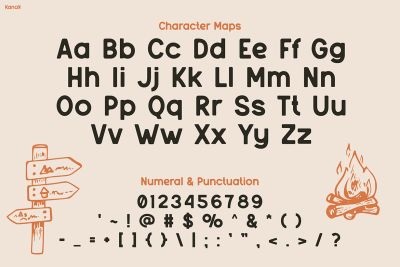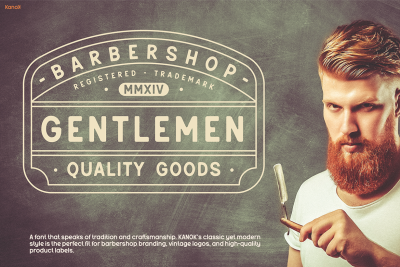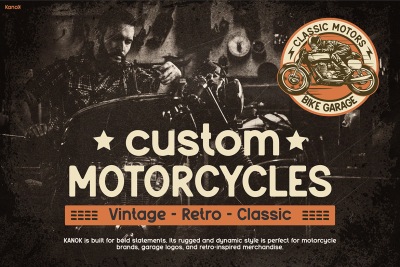
Retro Font KANOK is a beautifully crafted typeface that embodies the spirit of vintage design. With bold, structured letterforms and a nostalgic feel, this font is perfect for projects that seek to capture a sense of history and authenticity. Inspired by mid-century typography, KANOK offers a classic aesthetic while maintaining modern versatility.
The font features a bold and refined style with smooth curves and sharp edges, making it ideal for designs that require both strength and sophistication. Its timeless appeal makes it suitable for branding, packaging, and editorial use. Whether applied to beer labels, restaurant menus, or vintage-themed merchandise, KANOK enhances the visual experience with its striking presence.
Additionally, Retro Font KANOK provides exceptional readability while retaining a handcrafted essence. The balance between boldness and subtle detailing makes it stand out in both digital and print formats. The seamless integration of vintage and contemporary design elements ensures that KANOK remains relevant across different creative projects.
Who Should Use Retro Font KANOK?
- Breweries & Beverage Brands: Perfect for beer labels, wine packaging, and premium beverage branding, delivering a refined and classic aesthetic.
- Restaurants & Cafรฉs: Ideal for menus, signage, and promotional materials that require a nostalgic yet elegant touch.
- Graphic Designers: A must-have for designers working on vintage-inspired branding, posters, or packaging projects.
- Clothing & Lifestyle Brands: Great for t-shirts, apparel tags, and merchandise with a retro or heritage theme.
- Editorial & Publishing Houses: Enhances book covers, magazine layouts, and editorial designs that need a sophisticated, old-world charm.
- Event Planners & Wedding Designers: Works well for invitations, event banners, and decorative elements with a classic and stylish appeal.
Retro Font KANOK is more than just a typefaceโitโs a tribute to timeless design. Its strong yet elegant character ensures that every design exudes authenticity and sophistication. If you’re looking to evoke a sense of nostalgia while maintaining a modern edge, KANOK is the perfect choice.